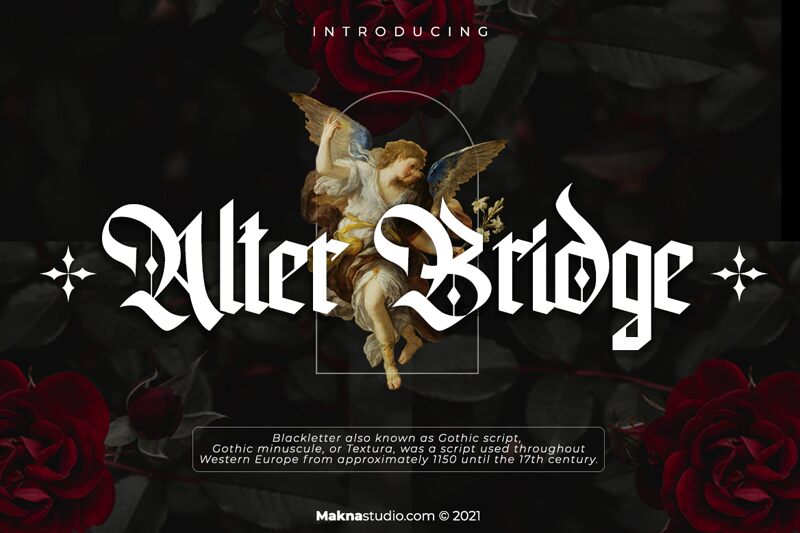
Alter Bridge
Alter Bridge, the latest gothic blackletter font from Makna Studio, is a perfect match for projects that require a touch of medieval-inspired elegance. With its semi-light weight and condensed width, this font adds an air of sophistication to any design. Its intricate details make it ideal for titles, logos, and branding materials for products ranging from artisanal beers to high-end fashion. For book covers and posters that need a touch of mystery and drama, Alter Bridge's sharp edges and angular shapes are sure to captivate readers' imaginations. Bring your designs to life with the unique charm of Alter Bridge!